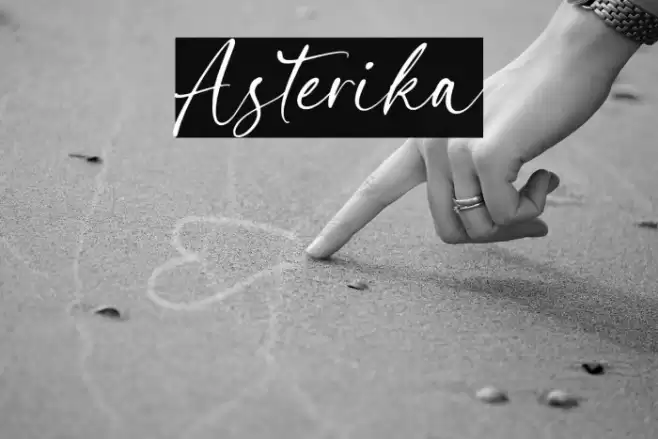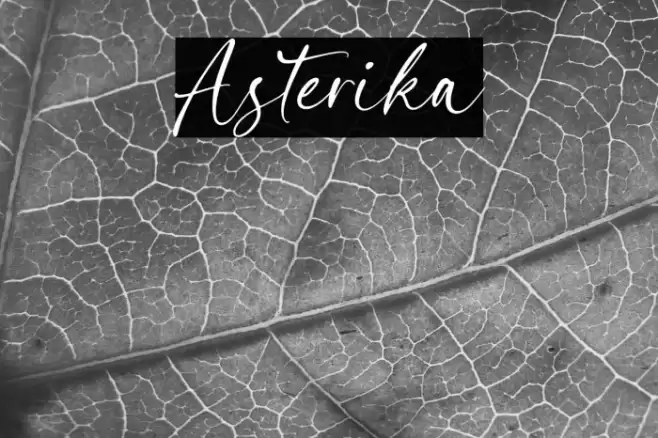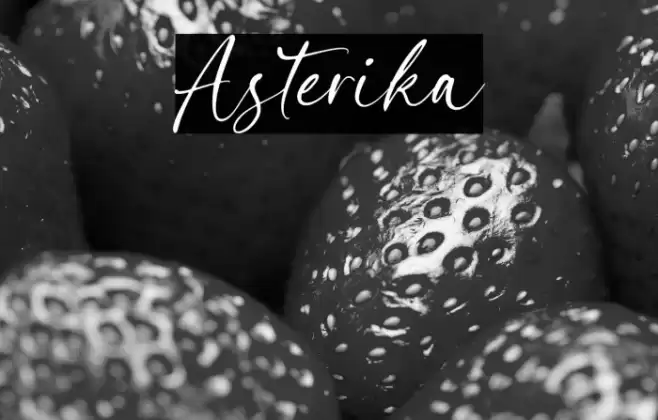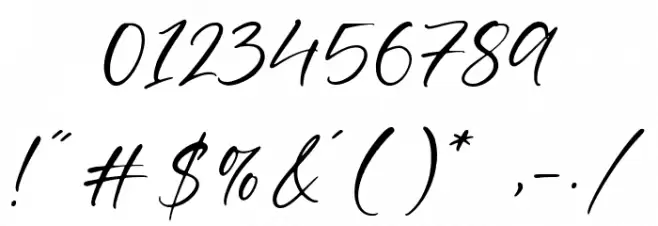
Asterika Font
Asterika Description
This font exudes elegance and fluidity, characterized by its cursive, handwritten style. The letters are gracefully connected, with smooth, flowing lines that give it a sophisticated and artistic appearance. The uppercase letters are bold and prominent, while the lowercase letters maintain a consistent and harmonious flow. The numerals are stylishly integrated, matching the overall aesthetic. Special characters are crafted with the same attention to detail, enhancing the font's versatility. This font is perfect for projects that require a touch of elegance and personal flair.
A cursive, handwritten font with elegant, flowing lines from Uncategorized fonts.
- Font: Asterika
- Proposed Projects: Ideal for wedding invitations, greeting cards, branding, and elegant logos.
- Overall Style: Elegant, Artistic
- Use Case: Logos, Invitations, Greeting Cards